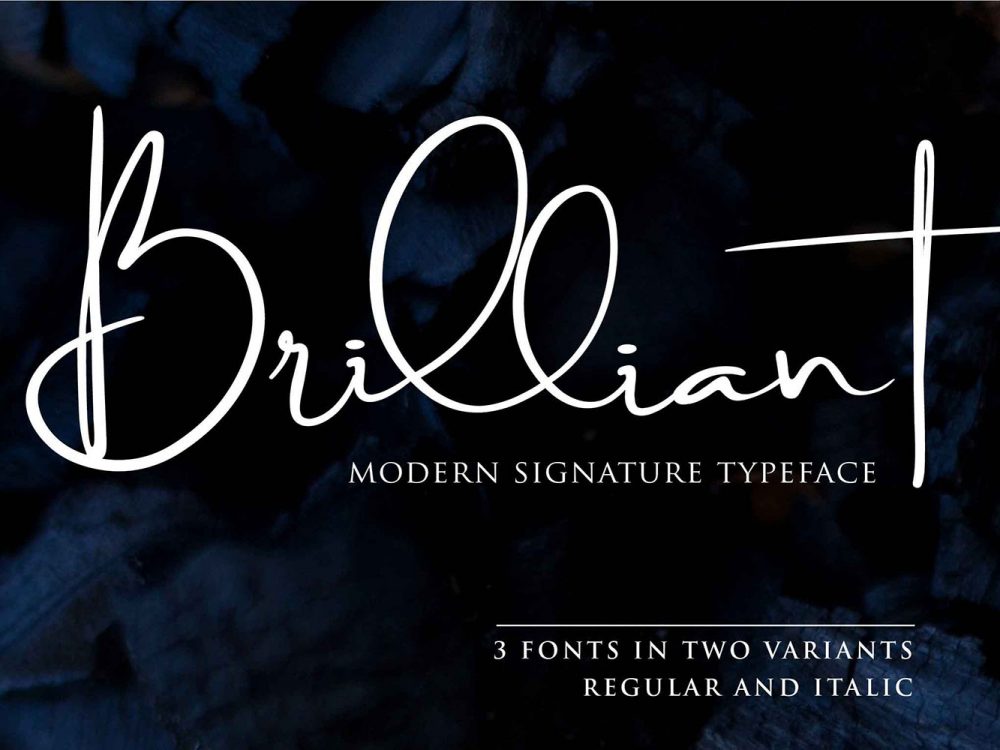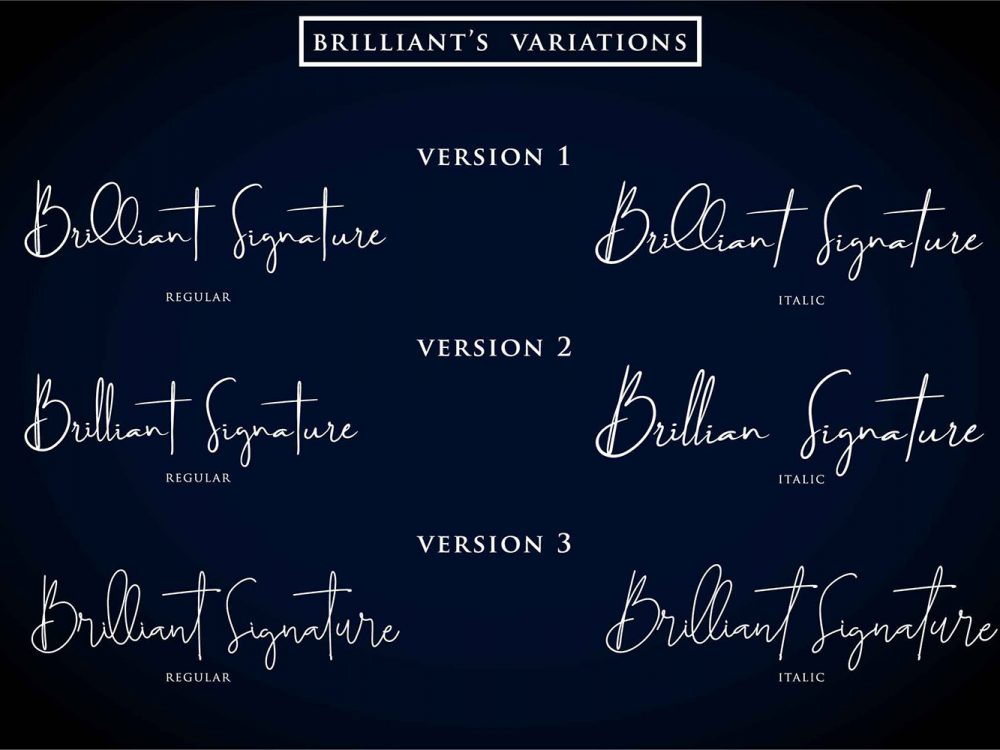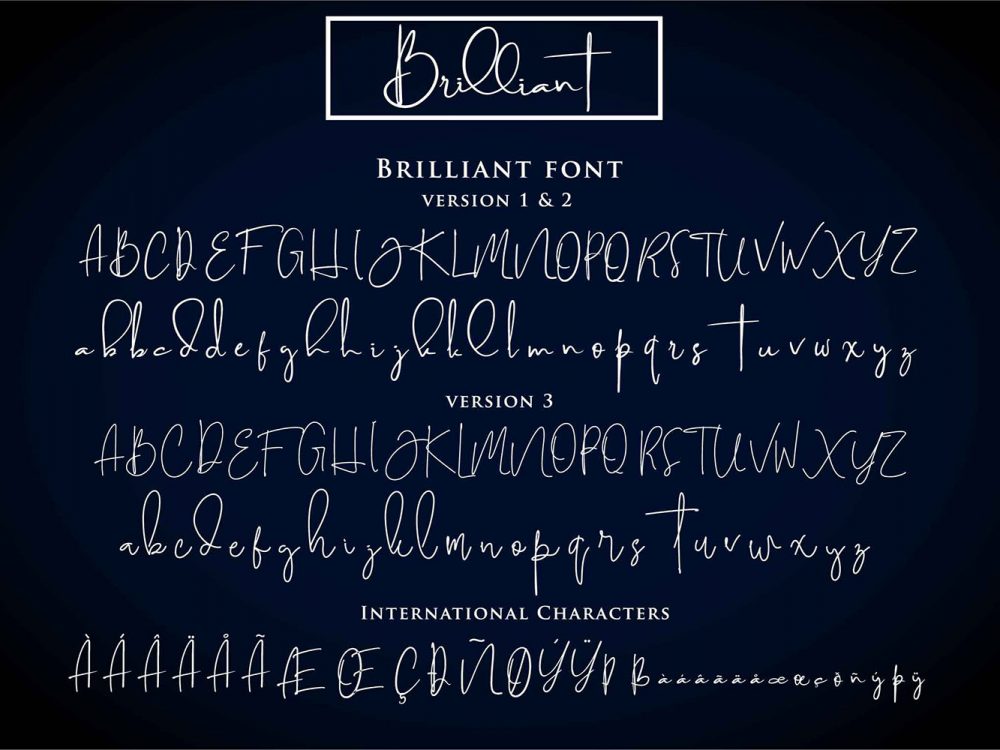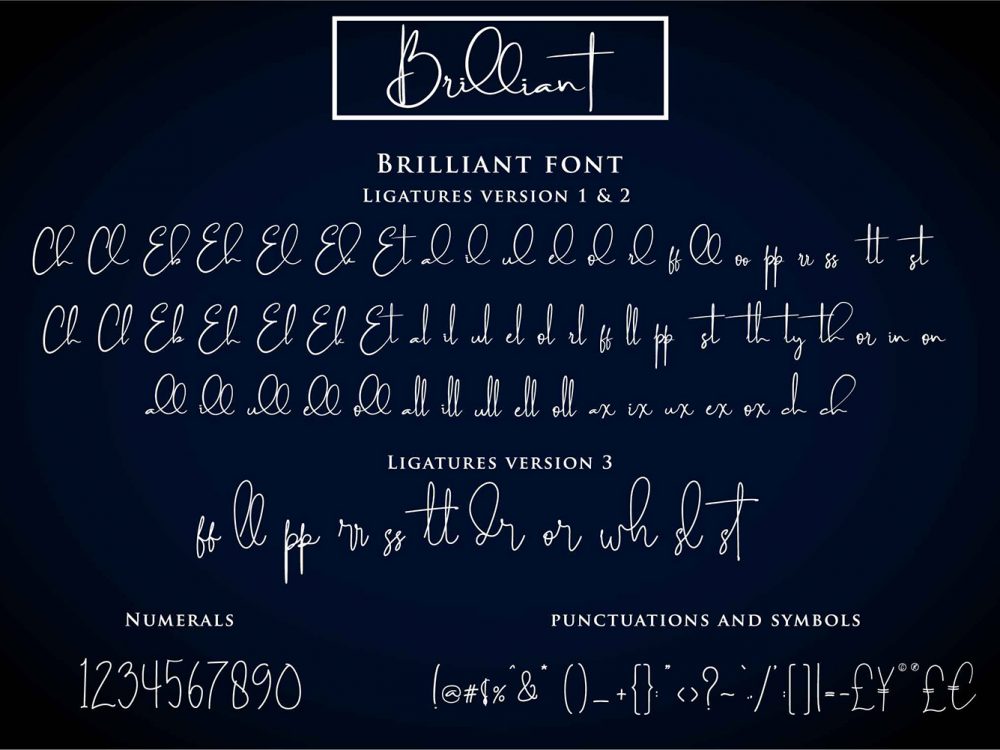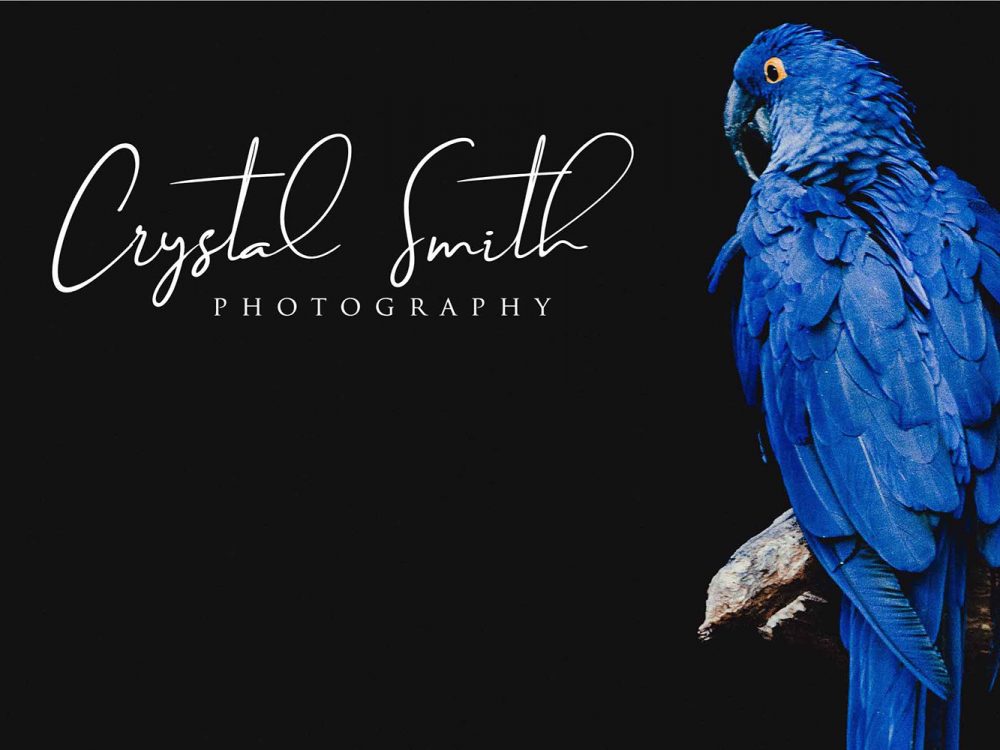
Brilliant Signature Typeface
Brilliant Signature Typeface is an interesting modern handwritten typeface with an elegant calligraphic style. This font will help you create unique design projects and improve your professional level. Use this font to create memorable posters, wedding invitations, cards, branding, flyers, and more. If you like it don’t forget to check out the full version.